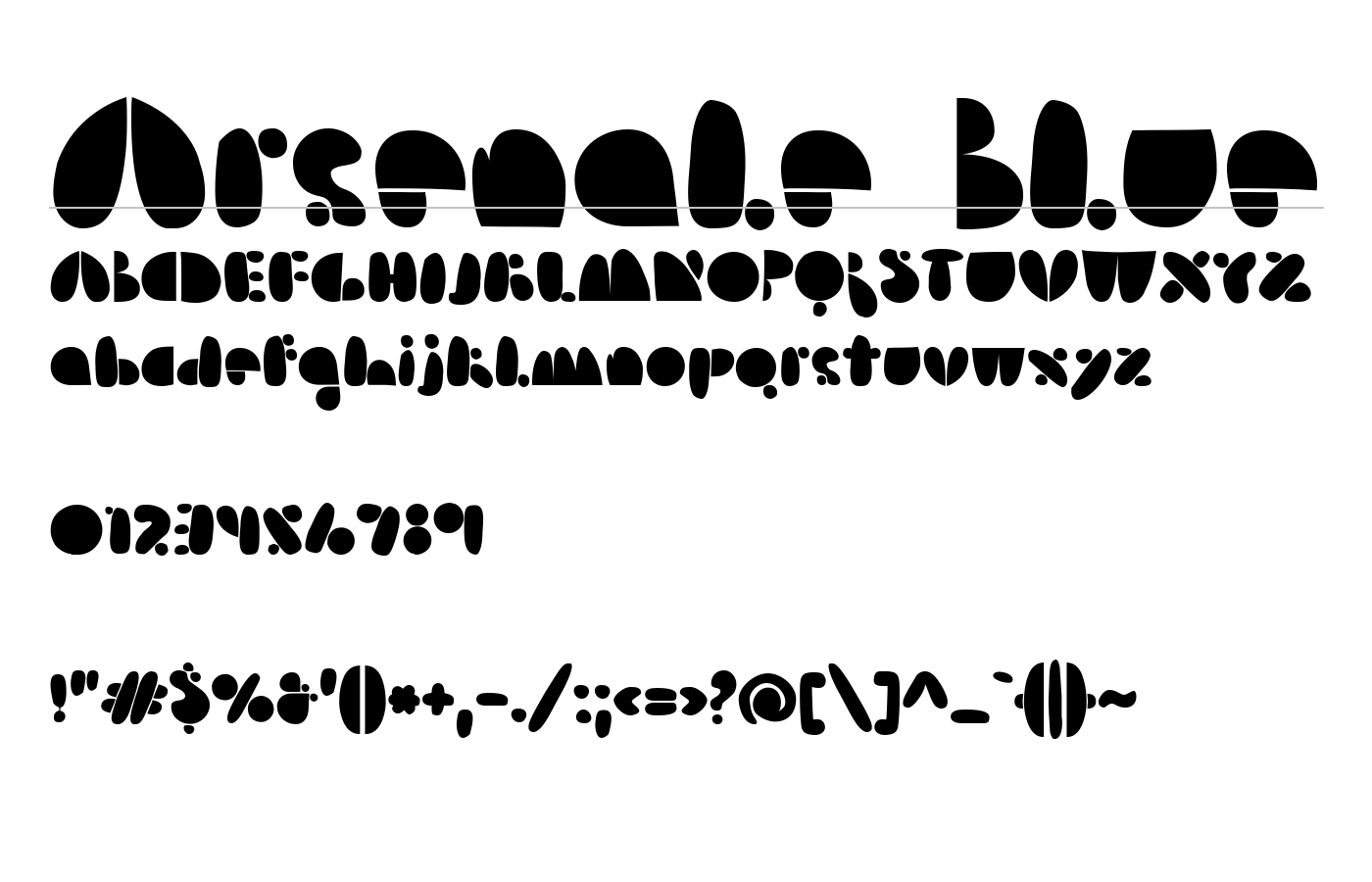
Arsenale Blue is a bold, playful display font characterized by its chunky, rounded shapes and heavy weight, making it stand out with a fun, retro vibe. Its wide letterforms and unique dot embellishments add a quirky personality, perfect for creative headlines, posters, or branding that wants to feel lively and unconventional. This font works best in eye-catching, decorative uses where its distinct style can shine without compromising readability.
Arsenale Blue Font
About Arsenale Blue Font
| Font family | Arsenale Blue Font |
| Designer | Francesco 'Mist!' Canovaro - Jonathan Calugi - Cosimo Lorenzo Pancini - Andrea Mi |